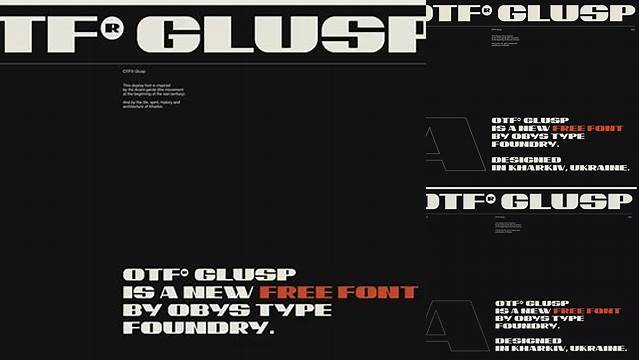
OTF Glusp Font: Free & Stylish Display Font Guide
Are you looking for a free display font that's both stylish and versatile? Look no further! The OTF Glusp font is a fantastic choice, offering a unique blend of modern aesthetics and readability. This comprehensive guide will explore everything you need to know about the OTF Glusp font, from its key features and design to how to use it effectively in your projects. Whether you're a seasoned designer or a beginner, this guide will equip you with the knowledge to make the most of this amazing free resource.
What is the OTF Glusp Font?
Firstly, let's get the basics down, yeah? OTF Glusp is a display font that falls into the category of modern and clean typefaces. The abbreviation "OTF" stands for OpenType Font, a widely used font format that supports a vast range of characters and features. It's designed to be eye-catching and is particularly suited for headlines, titles, and other prominent text elements. The font's design is characterized by its bold strokes, contemporary feel, and emphasis on visual impact. Glusp stands out from the crowd due to its unique character shapes and the overall polished look it brings to any design project. This makes it super attractive for a lot of different uses, from website headings to eye-catching posters. One of the best parts? It's totally free for personal and commercial use, which is awesome. Glusp is designed to be easily readable while maintaining a strong visual presence. The font’s structure is carefully crafted to ensure that each letter has its own unique personality, but still works well together. This is what makes Glusp a perfect fit for projects needing a strong design statement without sacrificing readability. The OTF Glusp font is ideal for a variety of design applications, including branding, advertising, and web design. It adds a touch of modernity and sophistication, while ensuring your message is clear and engaging. From creating awesome website headers to designing killer social media posts, Glusp is a versatile font that brings a fresh, modern feel to any project. The font’s designers have paid close attention to the finer details, ensuring that it looks great at a range of sizes. The OTF format also ensures compatibility across various platforms and design software, so you don't need to worry about any tech issues. It’s super user-friendly and designed to work seamlessly with all the popular design tools you might use every day. Glusp is not just a font; it’s a statement. Its clean lines and modern look instantly elevate any design. This makes it a great choice for anyone looking to create a professional and memorable visual identity. Whether you are a graphic designer working on a big project or a social media enthusiast looking to jazz up your posts, Glusp has got you covered. It is the perfect tool for adding a touch of class without having to spend a dime. What’s not to love?
Key Features of the OTF Glusp Font
Now let's talk specifics, yeah? What makes the OTF Glusp font so special? Firstly, its visual appeal. The font has a distinctive look that stands out without being overly complicated. It is characterized by bold strokes and a contemporary aesthetic, making it perfect for grabbing attention. Another awesome feature is its versatility. It works well in a wide range of applications, from website headers and logos to posters and social media graphics. The font is designed to look good at various sizes, ensuring its readability and impact remain consistent. This flexibility means it's useful for all kinds of design needs. One of the main things that set Glusp apart is its easy readability. Even though it has a unique style, the font is designed to ensure text is clear and easily understood. The designers of Glusp paid a ton of attention to the font's structure and the character designs, giving it both personality and great readability. This means your audience can easily read your message while still enjoying the font’s unique style. The OTF Glusp font includes all the standard characters, numbers, and punctuation marks. This comprehensive set makes it a reliable choice for a variety of projects. You can use Glusp across different operating systems and design programs because it is compatible with OpenType format. That's a huge plus! OTF fonts are popular for their extensive language support, which is an added benefit if you are targeting a global audience. Using the OTF Glusp font ensures your designs look professional and up-to-date. The font’s clean lines and contemporary feel give your projects a modern edge. This gives you a polished look that's sure to impress. Also, the fact that Glusp is available for free for both personal and commercial use is a major advantage. This means you can use it in any project without worrying about licensing fees. It's a budget-friendly option without sacrificing quality. It's not just a font; it’s a toolkit. It gives you a lot of cool options, making it easy to bring your ideas to life. The font's overall design ensures it works well in both print and digital formats. This adaptability is crucial in today's diverse design landscape. You can create cohesive branding materials, marketing campaigns, and eye-catching visuals with confidence. The Glusp font is a valuable resource for designers and anyone else looking to create high-quality visual content. It’s user-friendly, versatile, and looks fantastic. This makes it an excellent choice for your next project.
Best Uses for the OTF Glusp Font
So, what can you actually do with the OTF Glusp font? This font is a real star, so let's see where it shines. First off, consider it for any project requiring bold headlines or titles. The clean, modern design of Glusp is perfect for grabbing attention. Think about website headers, blog titles, and poster headlines. Anywhere you need to make a strong visual statement. The unique design of Glusp really stands out, ensuring your message is not only readable but also visually appealing. It's a great choice for any design where you want to make a statement. Glusp is also a fantastic option for logos and branding projects. Its modern aesthetic can help give your brand a fresh and contemporary look. It’s especially effective for businesses looking to portray innovation or a cutting-edge image. The versatility of the font makes it adaptable across different marketing materials. Use Glusp on your business cards, social media profiles, and website. Consistent use of the font will solidify your brand identity. Social media graphics are another perfect area to use Glusp. It’s ideal for creating eye-catching posts, stories, and other visuals that stand out in the crowded social media landscape. The strong visual presence of Glusp ensures your content gets noticed. Use it to create engaging quotes, announcements, and promotions. Glusp can also be used for print materials. From posters and flyers to brochures and magazines, the font maintains its visual appeal at different sizes. This makes it a reliable choice for all kinds of printed communications. In web design, Glusp can be used for website headings, navigation elements, and other prominent text features. The font's readability and modern style contribute to an enjoyable user experience. This can make your website more visually appealing and user-friendly. When using the OTF Glusp font, remember to prioritize legibility. Despite its distinctive style, it's important to ensure the font remains easy to read, especially in longer passages of text. Avoid using it for body text; instead, use it for key elements like headings. Experiment with different font sizes, spacing, and colors to find the perfect look for your project. The OTF Glusp font is a valuable tool for designers, marketers, and anyone looking to create visually appealing content. Its versatile design and free availability make it a top choice for various design applications.
Tips for Using the OTF Glusp Font Effectively
Want to get the most out of the OTF Glusp font? Here are some tips to make your designs stand out. First and foremost, use it strategically. It's a display font, so it's best suited for headlines, titles, and other elements that need to make a statement. Avoid using it for large blocks of text, as it can affect readability. Keep it simple. Less is often more when using a display font. Avoid overusing it or combining it with too many other decorative fonts. This can create a cluttered look. Pair Glusp with a complementary font for body text to create a balanced design. Another important aspect is size and scale. Experiment with different sizes to find the one that works best for your project. The visual impact of the font is amplified at larger sizes, making it perfect for attention-grabbing headlines. Always prioritize readability. While Glusp has a unique style, make sure your text is still easy to read, even at larger sizes. Choose colors that complement the font's design. Bold colors can make it pop, while more muted colors can create a sense of sophistication. Also, think about spacing. Adjusting the letter spacing and line height can greatly enhance the visual appeal. More space between characters can improve readability. Consider the context. The best font choice depends on the project. If you’re creating a logo, use the Glusp font. Consider your target audience. Select a font that resonates with them. Also, make sure to test your designs. Preview your designs on different devices and in different formats to ensure they look great everywhere. Experiment with the available characters and features. Get creative and try different styles and combinations. The OTF Glusp font offers a lot of potential to create unique and visually appealing designs. So, follow these tips and enjoy!
In conclusion, the OTF Glusp font is a fantastic free resource for designers and anyone else looking to add a touch of modern flair to their projects. With its clean design, versatility, and ease of use, it's an excellent choice for a wide range of applications. Download it today, and start creating!